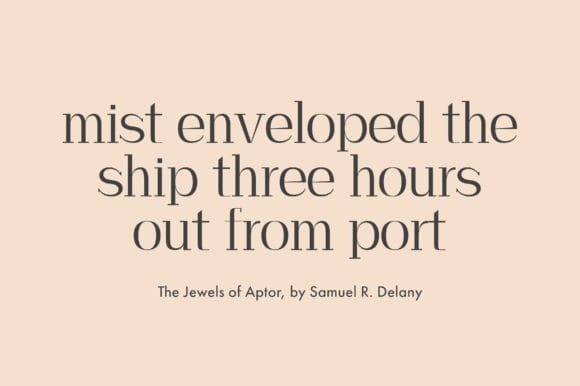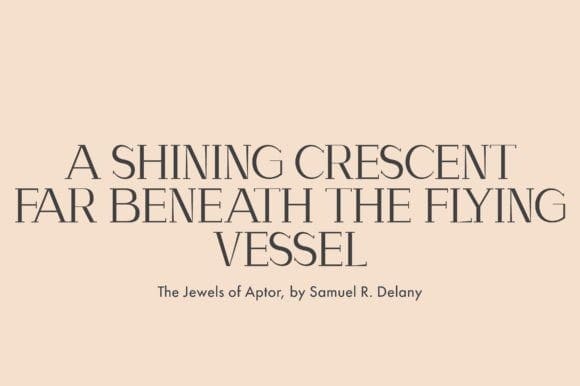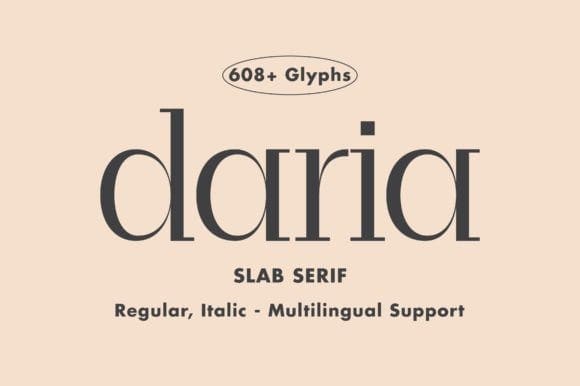
Daria Font
Daria Font, the epitome of modern elegance in the world of typography. This minimalist slab serif typeface boasts a sleek and sophisticated design, perfect for conveying a sense of professionalism and refinement in your creative projects.
Crafted with precision and attention to detail, Daria features clean lines and subtle curves that exude a sense of confidence and understated sophistication. Its unique blend of classic and contemporary design elements make it the perfect choice for everything from logos and branding materials to editorial layouts and web design.